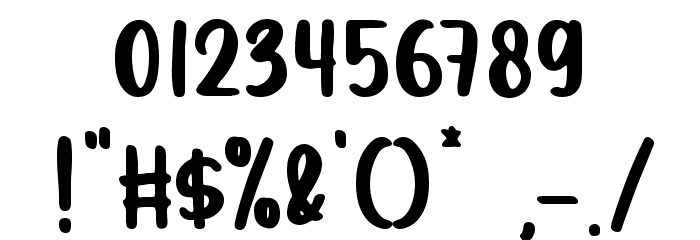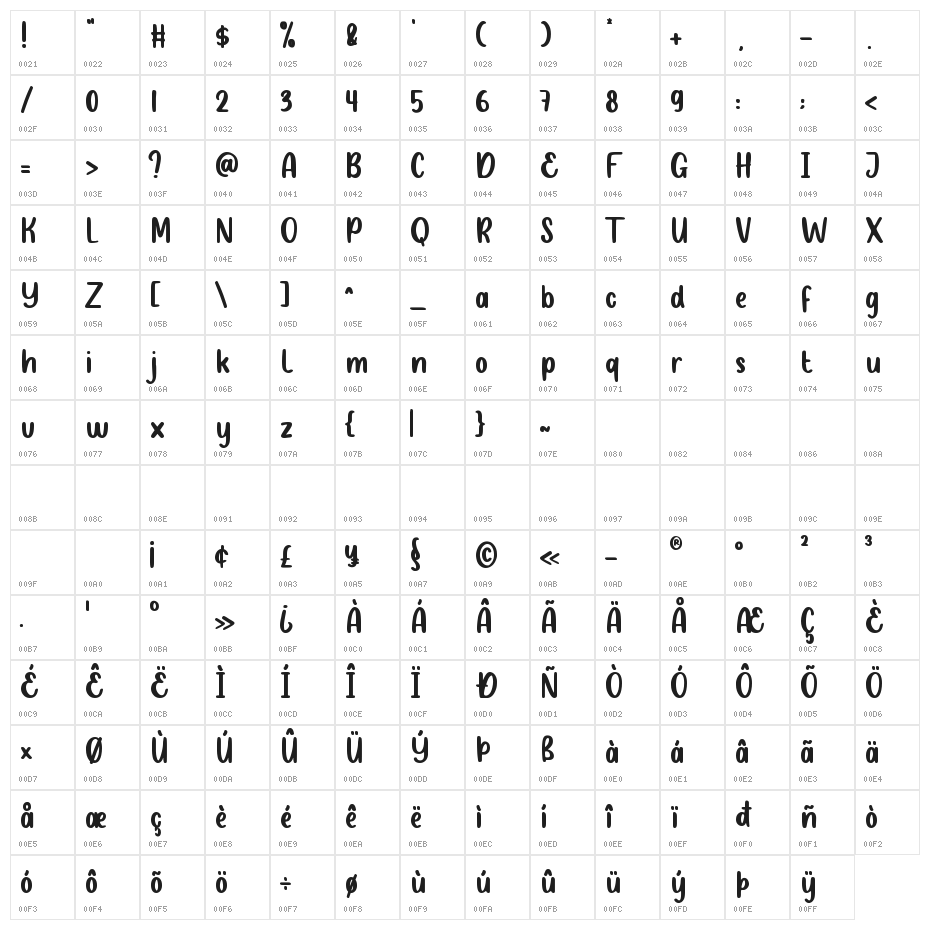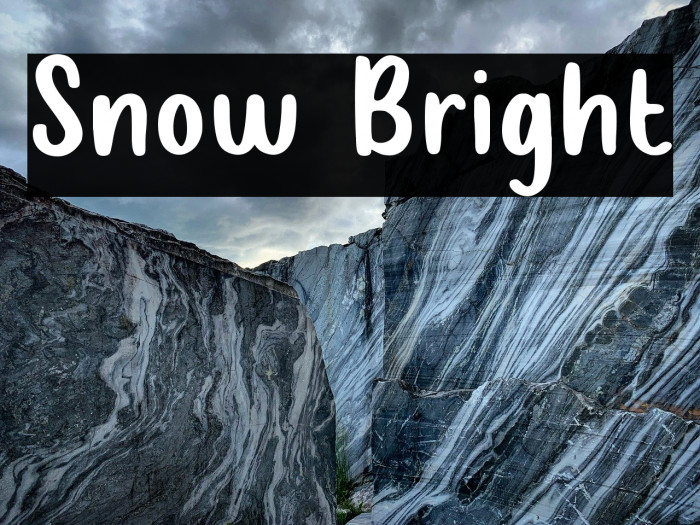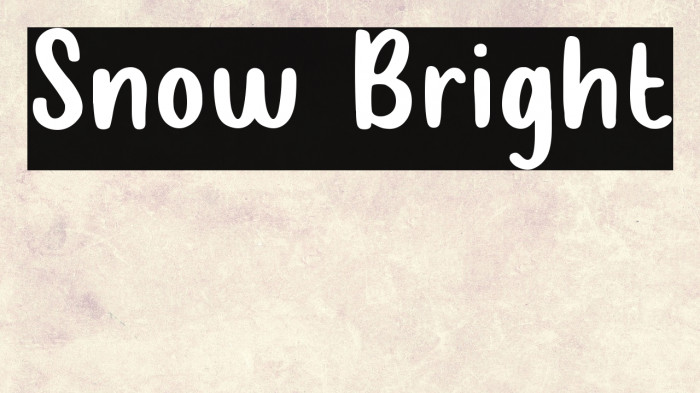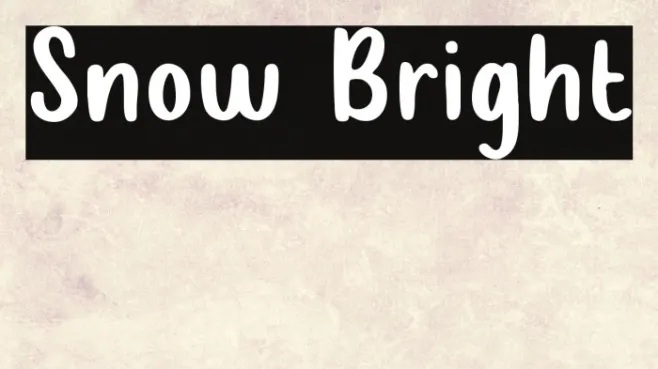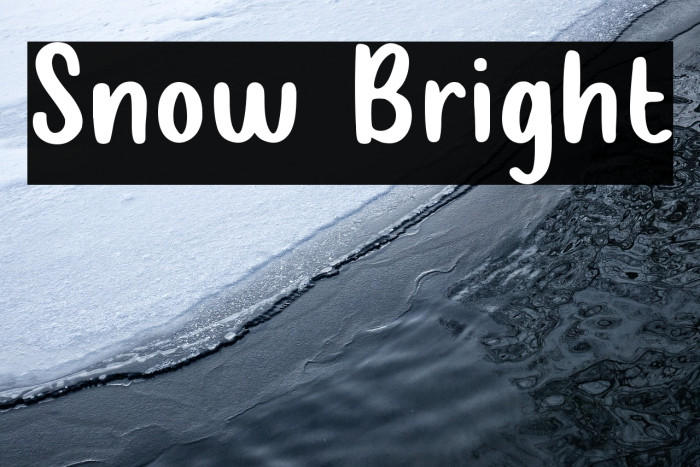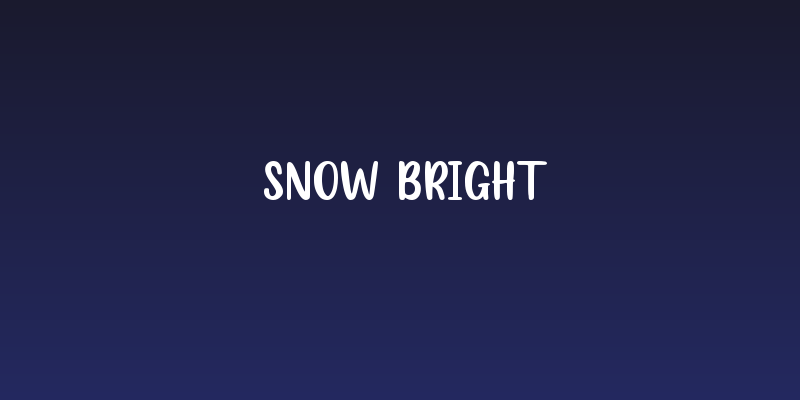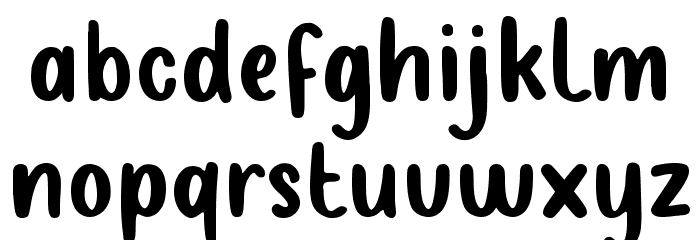
Snow Bright Font
Snow Bright Description
This font features a playful and rounded style, characterized by its bold and friendly appearance. The letters are slightly condensed, with a consistent stroke width that gives it a uniform look. The rounded edges and smooth curves contribute to its approachable and informal feel, making it ideal for casual and fun designs. The uppercase and lowercase letters maintain a consistent height, while the numerals and special characters are designed to match the overall style. The font's simplicity and clarity make it highly legible, even at smaller sizes.
| Proposed Projects | Ideal for children's books, playful branding, greeting cards, and social media graphics. |